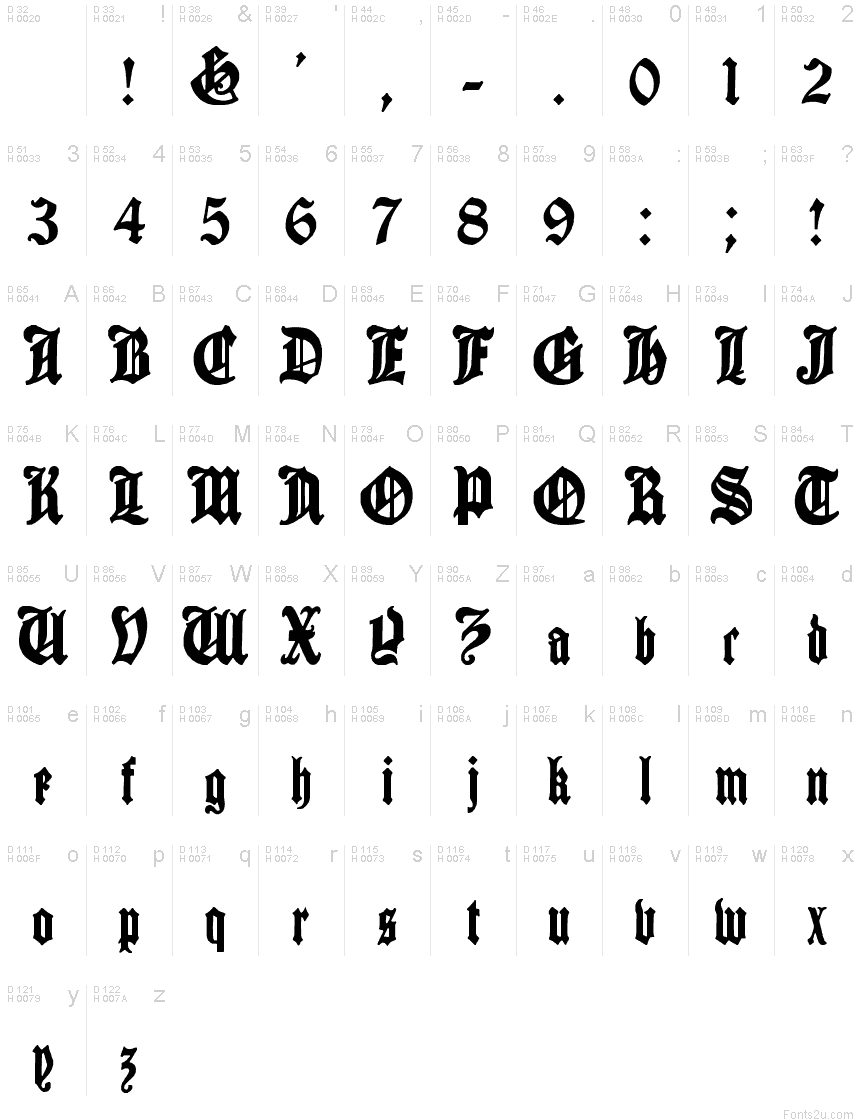
Cantebriggia
Cantebriggia font by PJL is a free gothic medieval typeface with dense, inky strokes and sharply broken curves that echo traditional blackletter calligraphy. The tall verticals and compact spacing create a dark, dramatic texture, while the angular forms keep every word feeling authoritative and ceremonial rather than casual.
Using Cantebriggia, this free font shines on band logos, fantasy book covers, historic posters, themed event branding, game titles, and tattoo-inspired artwork. Its tight rhythm works best at larger sizes where the intricate shapes can breathe, and it pairs well with a simple sans serif for supporting text or navigation to keep layouts readable and balanced.